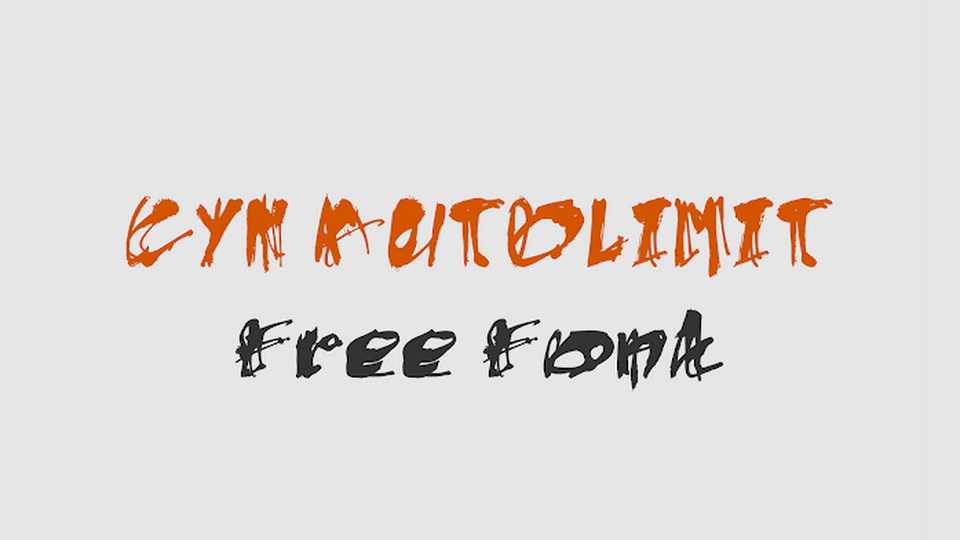
Download CYN Autolimit font, a natural hand brushed typeface with firm strokes and scratches. This is a great font for strong messages, posters, album artworks.
Designer: Petros Vasiadis